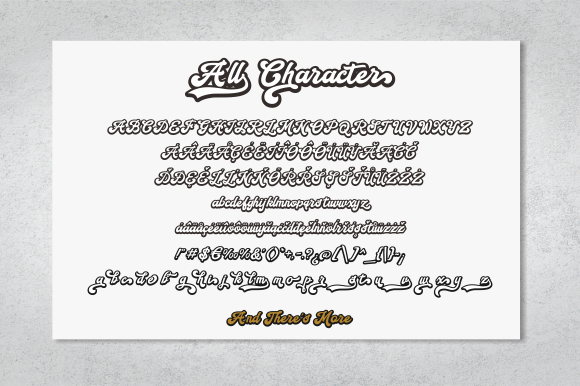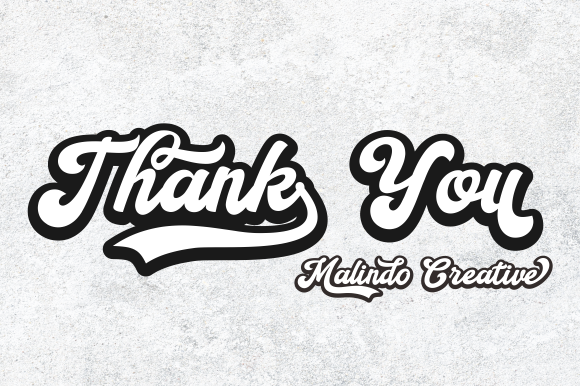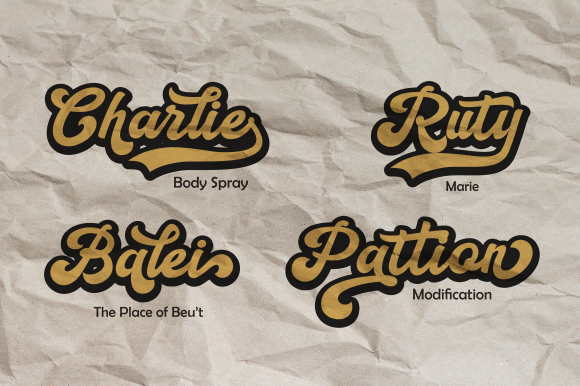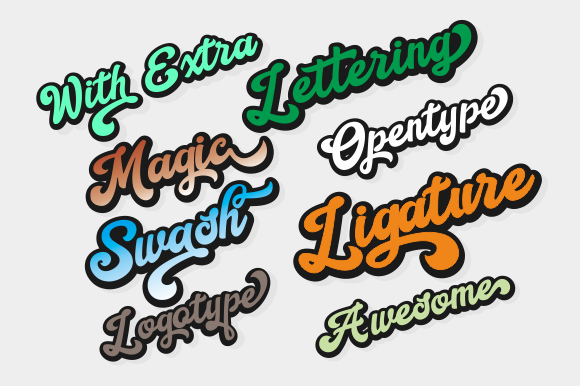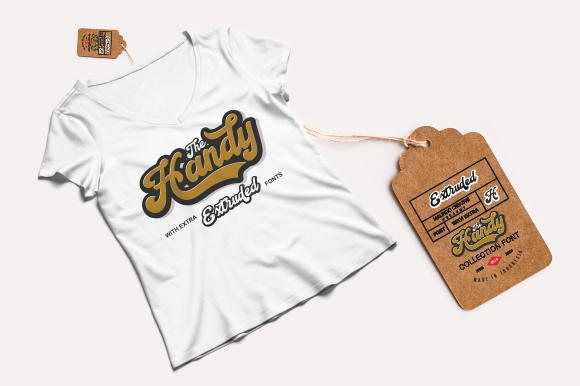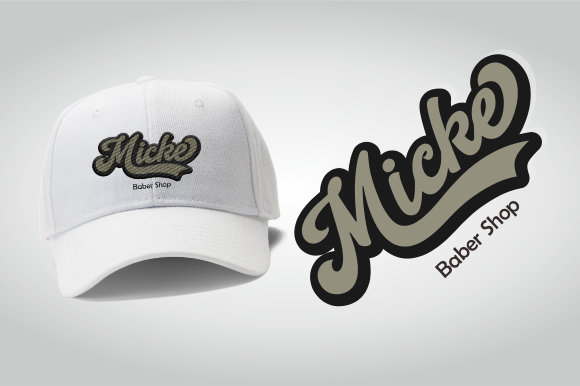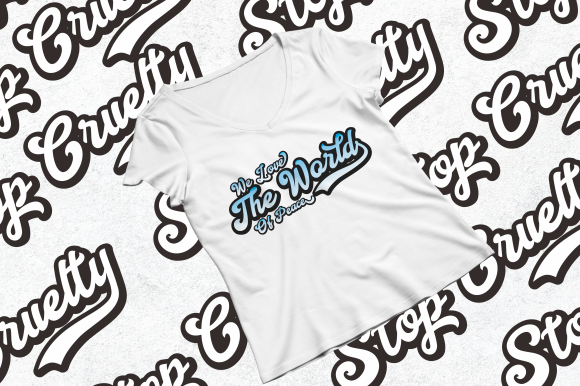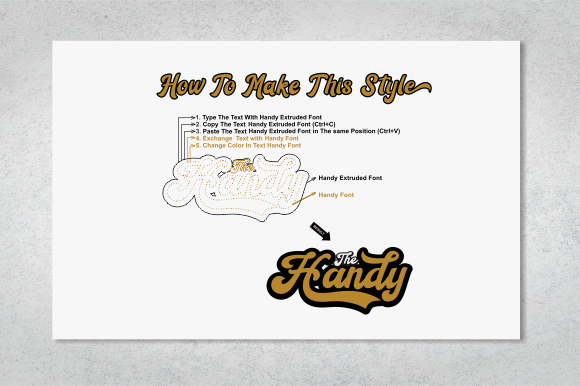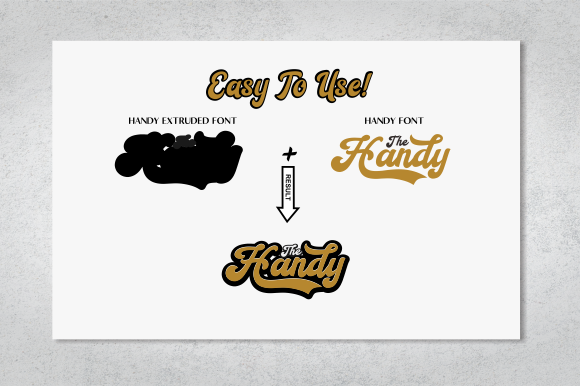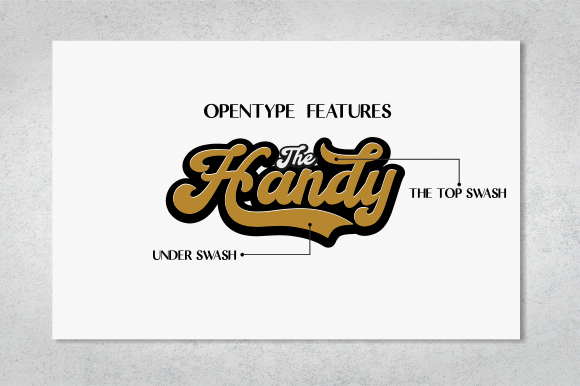
Handy Script Font
About Handy Script Font
Handy Script is a beautiful and bold handwritten font with an authentic feel. It will put a charming twist on any design project!